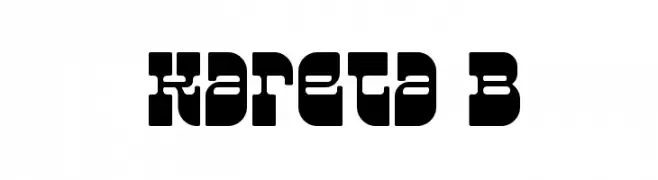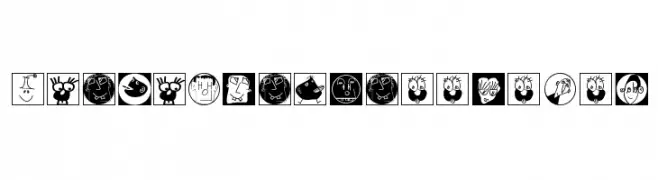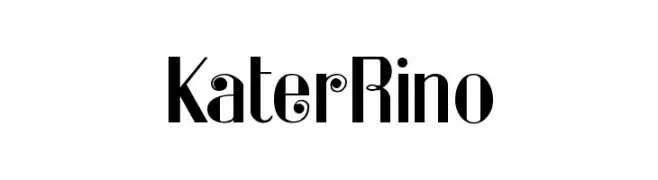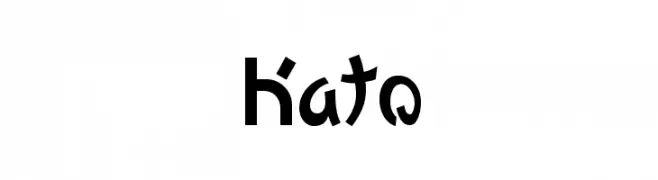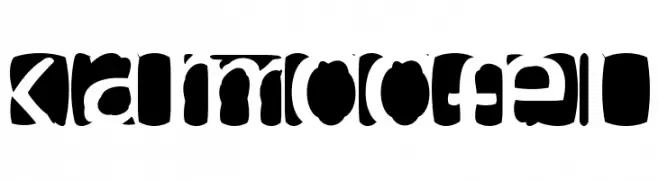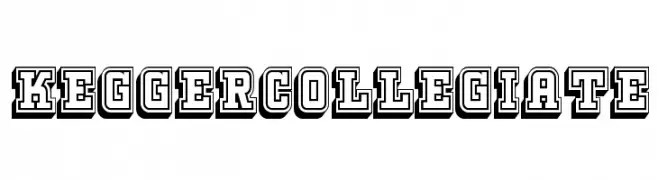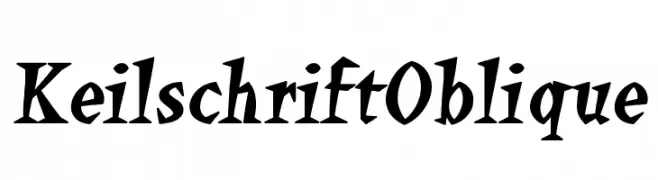
A geometric, modern font with characters enclosed in squares.
A playful, handwritten font with a casual and organic style.
A playful, hand-drawn font with a whimsical and organic style.
A playful dingbat font with whimsical icons and symbols.
A whimsical and decorative font with playful curls and swirls.
A playful, handwritten font with bold, rounded strokes and a lively, informal style.
A bold, playful handwritten font with a dynamic and friendly style.